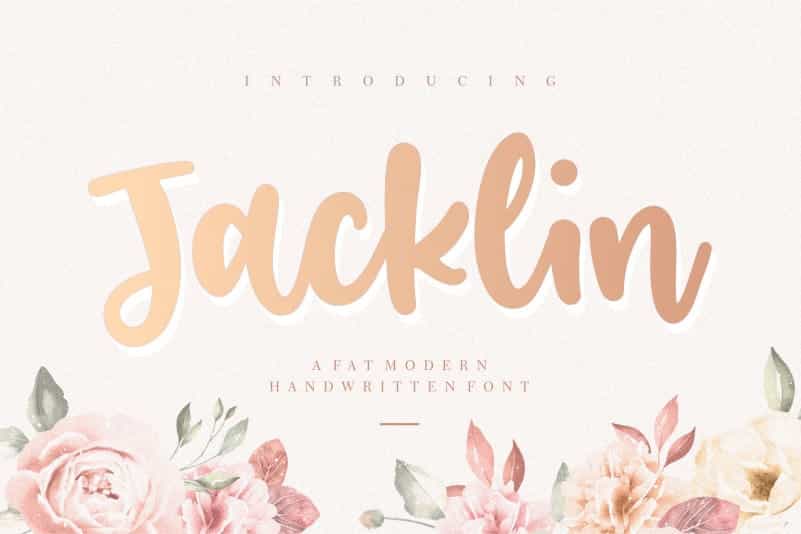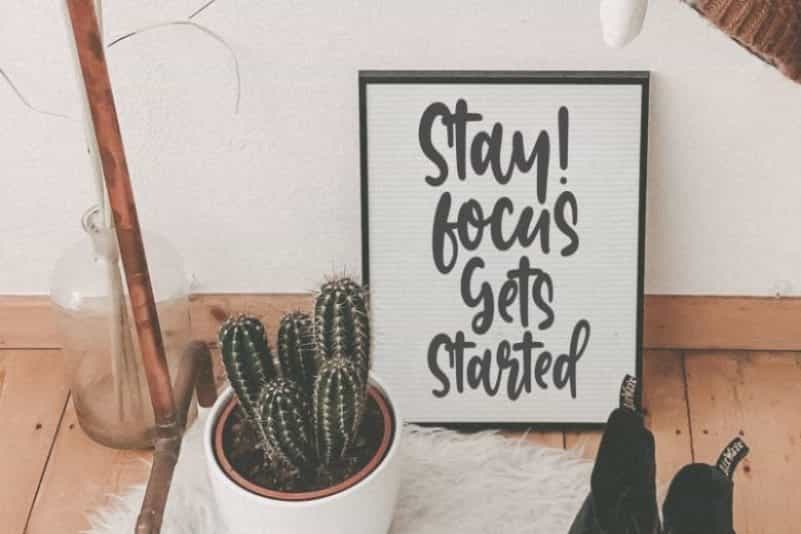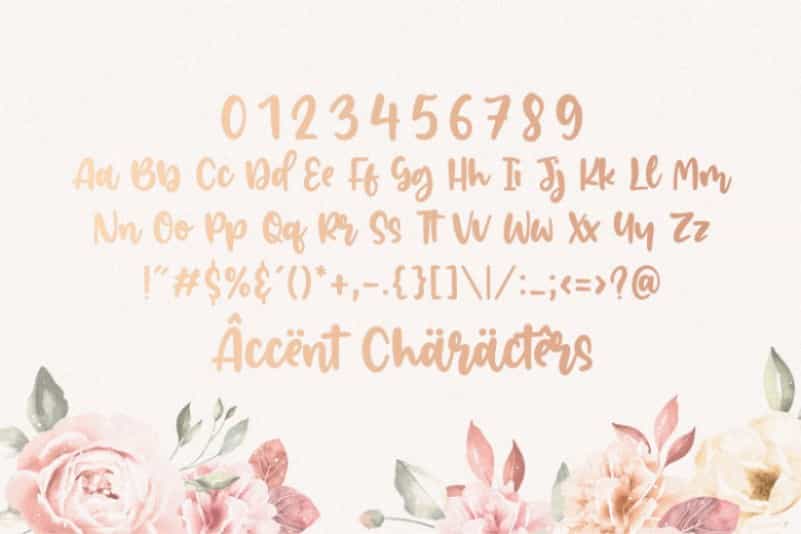
Discover Jacklin Modern Handwritten Font, part of the Handwritten Script collection—a versatile and unique font perfect for adding a personal touch to your projects. Download it for free and enjoy crafting designs with style, from invitations to social media posts. This font is available exclusively for personal use, giving you the freedom to create without limits. Unlock your creativity with Jacklin Modern Handwritten Font today!
Jacklin an Modern Handwritten Font, Jacklin is great for packaging products or branding, magazines social media, wedding or simply to write words over the background. The font comes with TTF, Jacklin also multilingual support.